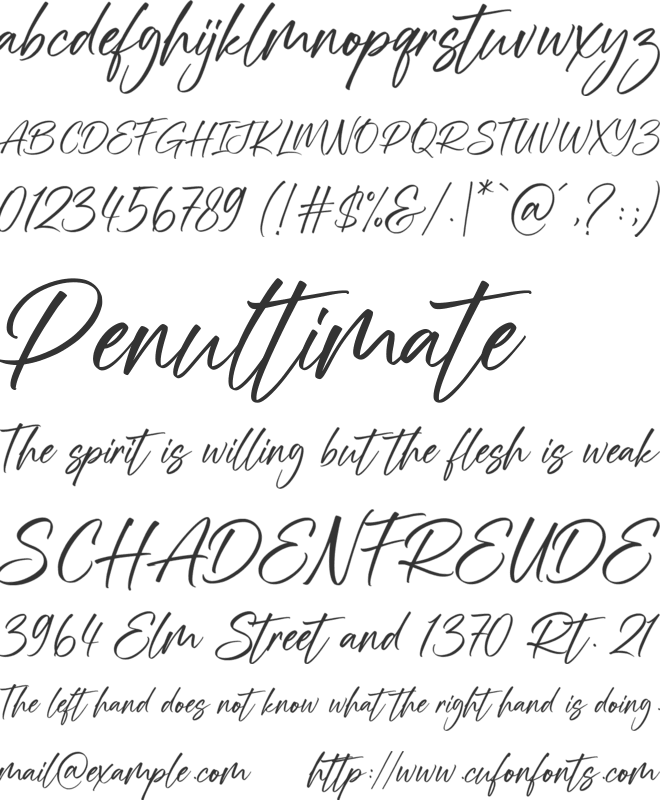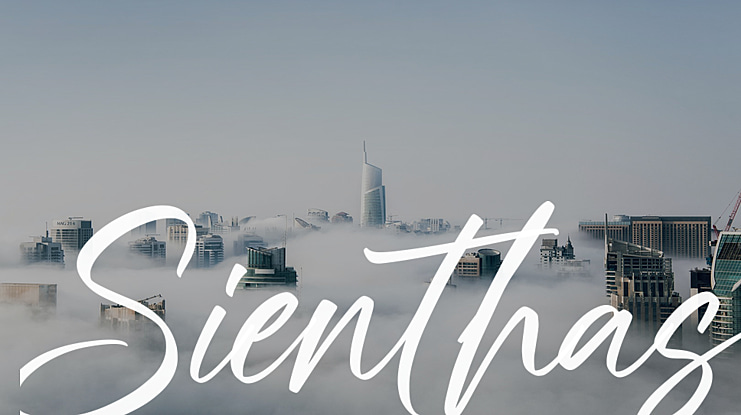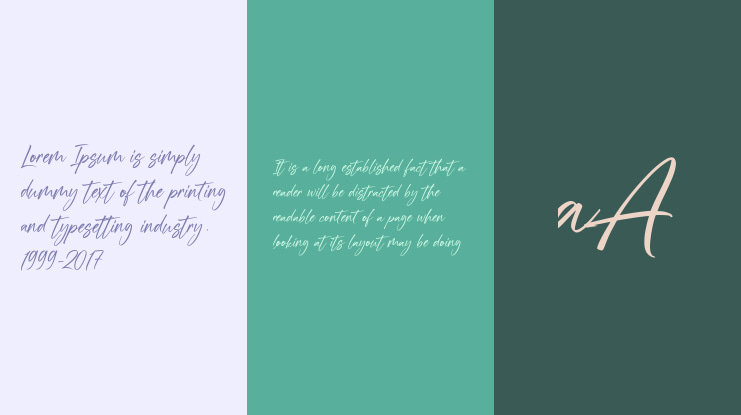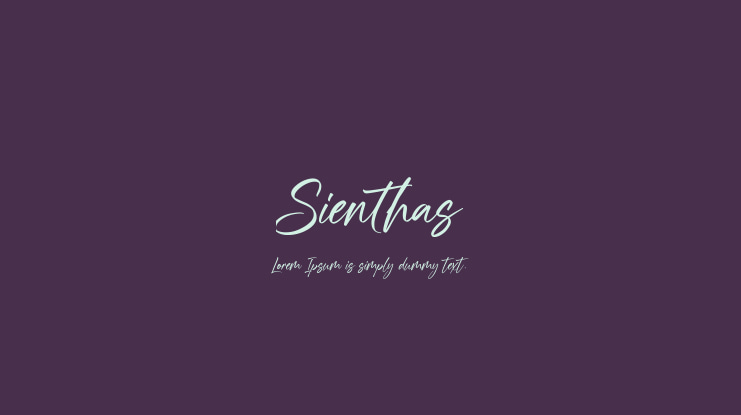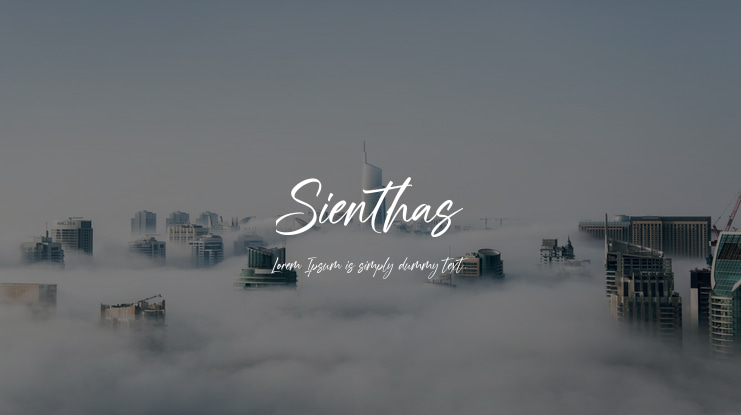
Sienthas Font
Sienthas Script Handwritten Font. Made from natural pen.
it will make your design project more beautiful.
The font is suitable for any design like branding, logo, tagline, fashion,
print template, quotes, wedding and etc.